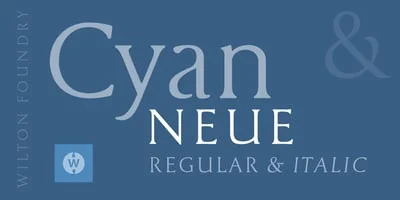
Cyan Neue Font
Cyan Neue Font is perfect for tech startup branding, digital agency communications, modern app interfaces, contemporary web design projects, innovative software packaging, cutting-edge electronics marketing, progressive corporate identities, and futuristic product presentations.
Cyan Neue Font is exciting because it represents the evolution of digital typography with its precisely engineered letterforms that pulse with technological innovation and forward-thinking design philosophy. The typeface embodies the crisp clarity of digital screens and the boundless possibilities of connected technology, creating an immediate sense of cutting-edge sophistication and digital mastery that resonates with audiences living in our hyperconnected world.
Cyan Neue Font family includes Ultra Light, Light, Regular, Medium, Bold, and Black weights, each with matching italic variants and extensive Unicode support, providing designers with comprehensive digital typography tools for creating communications that celebrate technological progress and global connectivity.
Whether you're developing a technology company's brand system, designing digital product interfaces, or creating innovative marketing campaigns, Cyan Neue Font delivers unmatched digital authenticity and contemporary appeal. This exceptional typeface perfectly balances technological precision with human accessibility, ensuring your communications resonate with audiences who appreciate both innovation and usability in our digital age. The font's optimized character structure and digital rhythm make it particularly effective for brands that position themselves at the forefront of technological advancement and user experience design. Digital professionals worldwide consistently select Cyan Neue Font when projects require typography that communicates intelligence, connectivity, and the kind of forward-thinking vision that shapes tomorrow's digital landscape, making it indispensable for technology branding, software interface design, and any application where progressive typography can reflect the values of innovation, accessibility, and the digital transformation that continues to revolutionize how humans communicate, work, and connect across our increasingly networked world.